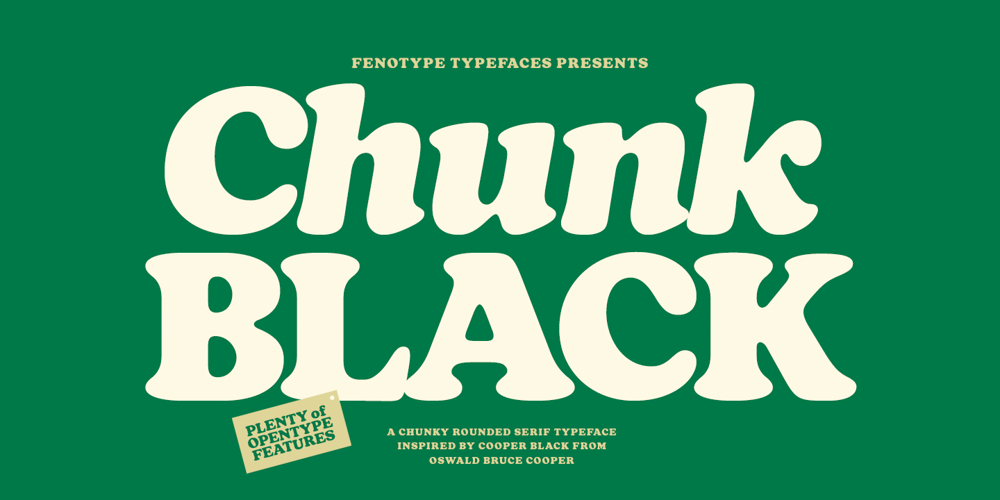
Chunk Font Family was designed by Emil Karl Bertell and published by Fenotype. Chunk contains 2 styles and family package options. Inspired by the more than hundred years old classic Cooper Black, Chunk Black features a hefty character with rounded serifs and a soft yet sturdy overall appearance. Chunk Black provides a timeless and friendly feel and it’s very suitable for product and packaging design and any kind of display purposes from music business to restaurant menus and from t-shirts to band logos.Both Chunk Black and Chunk Black Italic are equipped with several OpenType -features and a total number of 87 alternate characters, set in Swash, Stylistic and Titling Alternates and Discretionary Ligatures.